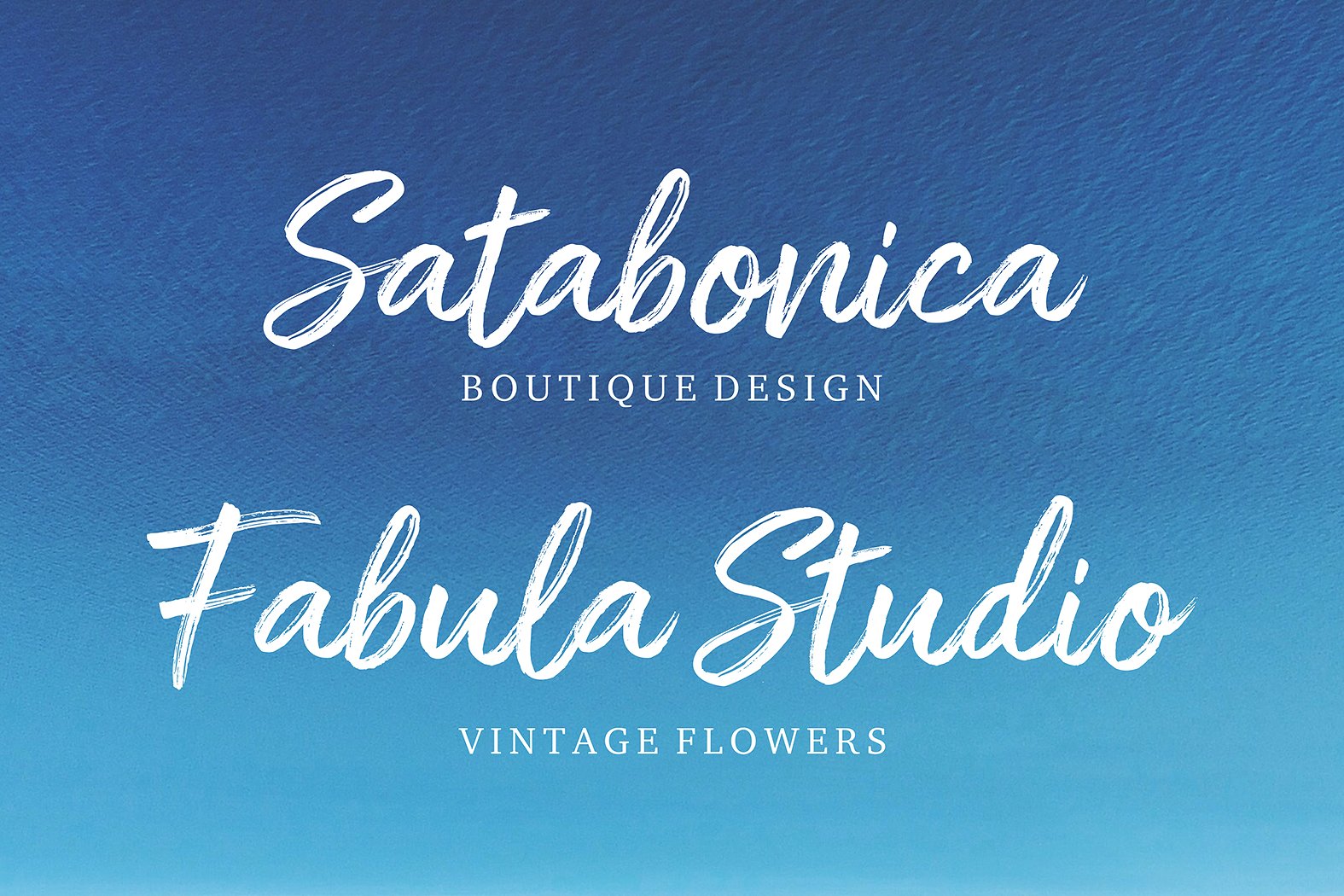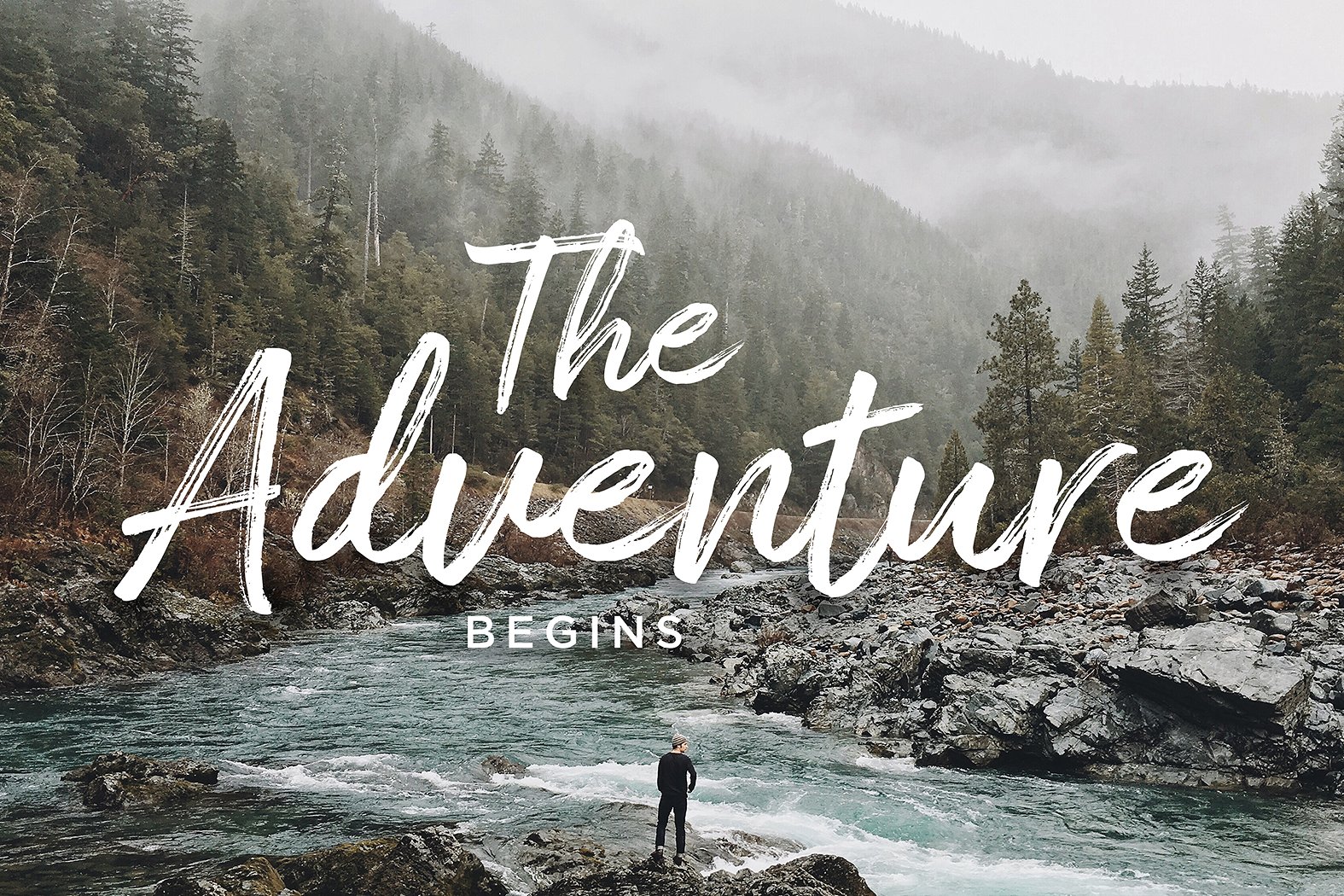
Amithen Font
db-ku.com - Script & Handwritten -- Amithen is textured brush font using a contemporary approach to design. Handmade naturally with an irregular baseline, Amithen is suitable for a number of display or decorative designs.